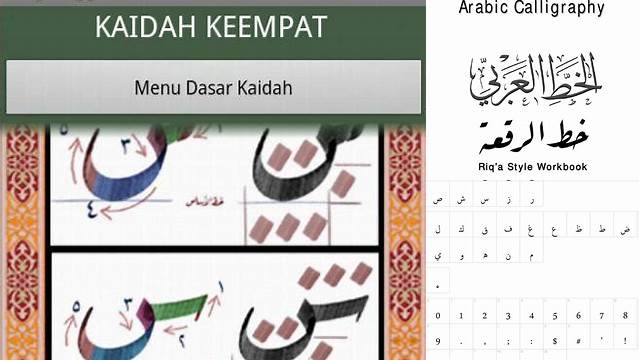
Free Riq'ah Font Download: Your Ultimate Guide
Are you looking to download Arabic Font Riq'ah for free? Well, you've come to the right place! This article is your ultimate guide to understanding, finding, and utilizing the beautiful Riq'ah script. We'll dive deep into its history, characteristics, and where you can get your hands on it without spending a dime. So, buckle up and let's explore the world of Riq'ah! This elegant script, known for its flowing and cursive style, holds a significant place in the world of Arabic calligraphy. Its widespread use in everyday handwriting, headlines, and informal contexts makes it an essential font for designers, students, and anyone interested in Arabic typography. But before we get into the specifics of downloading Riq'ah fonts, let's first understand what makes this script so unique and why it's so important.
Riq'ah script, a cornerstone of Arabic calligraphy, distinguishes itself through its distinctive features that make it both aesthetically pleasing and practical for everyday use. The beauty of Riq'ah lies in its simplicity and elegance. The letters are short, rounded, and connected, creating a fluid and harmonious flow across the page. Unlike more formal scripts like Naskh or Kufic, Riq'ah prioritizes speed and legibility, making it ideal for handwriting and quick note-taking. This emphasis on efficiency has contributed to its widespread adoption in various contexts, from personal correspondence to newspaper headlines. One of the defining characteristics of Riq'ah is the almost complete absence of diacritical marks (dots and dashes) above and below the letters. While this might seem like a potential source of ambiguity, the context and the overall flow of the script usually provide sufficient clues for deciphering the text. This simplification further enhances the speed and fluidity of writing in Riq'ah. The interconnectedness of the letters is another key feature. The letters within a word are joined together, creating a continuous, flowing line. This not only adds to the visual appeal of the script but also contributes to its speed and efficiency. The connections between letters are smooth and natural, allowing the writer to maintain a consistent rhythm. Riq'ah's versatility extends to its adaptability across different mediums and applications. It's commonly used in handwritten notes, posters, advertisements, and even digital designs. Its clear and concise forms make it suitable for both short and long texts, and its aesthetic appeal adds a touch of elegance to any project. Whether you're designing a logo, creating a social media graphic, or simply writing a letter to a friend, Riq'ah can be a beautiful and effective choice. Understanding these unique characteristics is the first step in appreciating the beauty and functionality of Riq'ah script. As you begin to explore the world of Riq'ah fonts, you'll notice these features in action, and you'll gain a deeper understanding of why this script has remained so popular for centuries. Now that we've explored the features of Riq'ah, let's dive into where you can find these fonts for free and how to use them in your projects.
What is Riq'ah Font?
Let's get into the nitty-gritty of what is Riq'ah Font exactly. Guys, Riq'ah is one of the most popular Arabic calligraphic styles, known for its concise forms and fluid strokes. It's like the cool, casual cousin of the more formal Arabic scripts. Itβs widely used in everyday handwriting, signage, and even in some print media. Think of it as the go-to script for quick, legible, and stylish Arabic writing. Historically, Riq'ah emerged as a simplified version of the Naskh script, designed for faster writing. This makes it incredibly practical for daily use. Its letters are typically short and connected, with a distinctive slant to the left. The beauty of Riq'ah lies in its simplicity. The strokes are clean, and the letterforms are compact, making it easy to read even when written quickly. This makes it an excellent choice for everything from personal notes to public announcements. One of the key features of Riq'ah is its interconnectedness. The letters flow seamlessly into one another, creating a sense of rhythm and harmony. This fluidity is not just aesthetically pleasing; it also contributes to the script's speed and efficiency. Writers can move smoothly from one letter to the next without lifting their pen, making it perfect for jotting down ideas or composing quick messages. Riq'ah's widespread use also means that there's a wealth of resources available for those who want to learn and use it. You can find Riq'ah calligraphy in various forms, from traditional handwritten pieces to digital fonts. This accessibility makes it an excellent choice for designers, students, and anyone interested in exploring Arabic calligraphy. When you compare Riq'ah to other Arabic scripts, its unique characteristics become even more apparent. For example, compared to the more elaborate Thuluth script, Riq'ah is much simpler and less ornate. It doesn't have the same grand, majestic feel as Thuluth, but it makes up for it in its practicality and ease of use. Similarly, compared to Kufic, which is known for its angular and geometric forms, Riq'ah is much more rounded and flowing. This contrast highlights the versatility of Arabic calligraphy, with each script offering its own unique aesthetic and functional qualities. In the digital world, Riq'ah fonts are essential for anyone working with Arabic typography. Whether you're designing a website, creating marketing materials, or simply writing emails in Arabic, having a good Riq'ah font in your toolkit is crucial. Fortunately, there are many high-quality Riq'ah fonts available, both free and paid, which we'll explore in more detail later in this article. Understanding the essence of Riq'ah β its simplicity, fluidity, and practicality β is the first step in appreciating its beauty and usefulness. So, whether you're a seasoned calligrapher or a complete beginner, Riq'ah offers a fantastic entry point into the world of Arabic script. Now that we know what Riq'ah is, let's find out where you can snag some free fonts!
How to Choose the Right Riq'ah Font
So, you've got a list of places to download free Riq'ah fonts, but how do you pick the right one? Choosing the right font is crucial, guys. It's like picking the perfect outfit β it can make or break your design! The key is to consider your project's specific needs and the overall aesthetic you're aiming for. First and foremost, think about the readability of the font. While Riq'ah is generally a legible script, some fonts are more stylized than others. If you're using the font for body text or longer passages, you'll want to choose one that's clear and easy on the eyes. Avoid fonts with overly decorative elements or unconventional letterforms, as these can make reading more challenging. For headlines or shorter text elements, you have a bit more leeway to experiment with more stylized fonts. In these cases, you can prioritize aesthetics over strict legibility, as long as the text is still readable at a glance. Think about the overall tone and mood you want to convey. Different Riq'ah fonts can evoke different feelings. Some fonts are more traditional and elegant, while others are more modern and playful. Consider the context of your project and choose a font that aligns with the message you're trying to communicate. For example, if you're designing a formal invitation, you might opt for a classic, refined Riq'ah font. On the other hand, if you're creating a social media graphic for a younger audience, a more contemporary and dynamic font might be a better choice. Think about the technical aspects of the font as well. Make sure the font supports the characters and symbols you need, especially if you're working with a specific dialect of Arabic. Check the font's character set to ensure it includes all the letters, numbers, and punctuation marks you'll be using. It's also a good idea to test the font in different sizes and weights. Some fonts look great in large sizes but become illegible when scaled down. Others may not have enough weight variations to provide the emphasis you need in your design. Experiment with different sizes and weights to see how the font performs in various contexts. Consider the font's compatibility with your design software and operating system. While most modern fonts are cross-platform compatible, it's always a good idea to double-check before you commit to a particular font. Make sure the font works seamlessly with your preferred design tools to avoid any technical issues down the road. Don't be afraid to try out multiple fonts before making a final decision. Download a few different Riq'ah fonts and experiment with them in your design. See how they look in different layouts, with different colors, and alongside other fonts. The more options you explore, the more likely you are to find the perfect font for your project. Lastly, remember to respect the font's licensing terms. If you're using a free font, make sure you understand the terms of use and that you're complying with the license. Some free fonts are for personal use only, while others can be used for commercial projects. Knowing the licensing terms will help you avoid any legal issues. Choosing the right Riq'ah font is a crucial step in creating effective and visually appealing designs. By considering factors like readability, tone, technical aspects, and licensing, you can select a font that perfectly complements your project. Now that you know how to choose the right font, let's explore how you can use Riq'ah in your designs.
How to Use Riq'ah Font in Your Designs
Alright, you've got your free Riq'ah font download and you're ready to roll. But how do you actually use it in your designs? Don't worry, guys, it's not rocket science! Using Riq'ah effectively is all about understanding its strengths and using it in the right context. Riq'ah is a versatile script, but it shines brightest when used for shorter text elements like headlines, quotes, and captions. Its flowing and concise forms make it ideal for grabbing attention and conveying a message quickly. In longer passages of text, Riq'ah can sometimes become a bit challenging to read due to its interconnected letterforms. So, it's generally best to reserve it for shorter pieces where its aesthetic qualities can really shine. Think about using Riq'ah in logos and branding materials. Its elegant and distinctive style can add a touch of sophistication to your brand identity. A well-crafted Riq'ah logo can be both visually appealing and culturally relevant, especially for businesses targeting Arabic-speaking audiences. When using Riq'ah in logos, keep the design clean and simple to ensure maximum impact. Experiment with different letter combinations and arrangements to create a unique and memorable logo. In social media graphics, Riq'ah can be a fantastic way to make your content stand out. Use it for headlines, captions, or even as a decorative element in your graphics. Its eye-catching style will help you capture attention and engage your audience. When using Riq'ah on social media, keep in mind the platform's character limits and the overall visual aesthetic. Choose a font that's easy to read on smaller screens and that complements your brand's visual identity. Riq'ah is also an excellent choice for posters and flyers. Its bold and flowing forms can create a dynamic and engaging visual experience. Use it for headlines, subheadings, or even as a background element in your designs. When designing posters and flyers, consider the overall layout and color scheme. Make sure the Riq'ah font stands out and is legible from a distance. In web design, Riq'ah can add a touch of elegance and cultural authenticity to your website. Use it for headings, navigation menus, or even as a decorative element in your website's design. When using Riq'ah on the web, keep in mind the website's loading speed and the font's compatibility with different browsers. Choose a font that's optimized for web use and that renders correctly on all devices. Experiment with different font sizes and weights to ensure the text is readable on different screen sizes. When incorporating Riq'ah into your designs, think about typography best practices. Pay attention to kerning, leading, and tracking to ensure the text is visually appealing and easy to read. Experiment with different font pairings to create a harmonious and balanced design. Riq'ah pairs well with both Arabic and Latin fonts, so you have plenty of options to choose from. Consider the color palette and the overall visual hierarchy of your design. Use color and contrast to highlight the Riq'ah text and make it stand out. Create a clear visual hierarchy to guide the viewer's eye and ensure they can easily read and understand the message. Finally, remember to be creative and have fun! Riq'ah is a beautiful and versatile script, so don't be afraid to experiment with different styles and techniques. Let your creativity guide you and see what unique and stunning designs you can create. By understanding how to use Riq'ah effectively, you can elevate your designs and create visually compelling and culturally relevant content. Now that you know how to use Riq'ah, let's wrap things up and summarize what we've learned.
So, guys, we've reached the end of our journey into the world of Arabic font Riq'ah free download. We've covered a lot, from understanding what Riq'ah is to finding free fonts and using them effectively in your designs. Hopefully, you're now feeling confident and inspired to start incorporating this beautiful script into your projects. Remember, Riq'ah is more than just a font; it's a rich part of Arabic culture and calligraphy. Its elegant and flowing forms have been used for centuries in various contexts, from personal handwriting to official documents. By using Riq'ah in your designs, you're not just adding a visual element; you're also connecting with a long and fascinating history. Finding the right Riq'ah font for your needs is crucial. Take the time to explore different options, consider your project's specific requirements, and choose a font that aligns with your overall aesthetic. Don't be afraid to experiment with different styles and techniques to create unique and visually appealing designs. Whether you're designing a logo, creating social media graphics, or building a website, Riq'ah can add a touch of elegance and authenticity to your work. But remember, it's not just about the font itself; it's about how you use it. Pay attention to typography best practices, such as kerning, leading, and tracking, to ensure your text is legible and visually harmonious. Experiment with different font pairings and color palettes to create a cohesive and balanced design. And most importantly, have fun and let your creativity shine! The world of Arabic typography is vast and diverse, with each script offering its own unique charm and character. Riq'ah is just one piece of the puzzle, but it's a significant one. By mastering Riq'ah, you'll be well-equipped to tackle a wide range of design challenges and create stunning visuals that resonate with your audience. So, go forth and explore the world of Riq'ah! Download some free fonts, experiment with different designs, and see what you can create. And don't forget to share your creations with the world. We'd love to see what you come up with! We hope this comprehensive guide has been helpful and informative. If you have any questions or suggestions, feel free to leave a comment below. And stay tuned for more articles on typography, design, and everything in between. Happy designing, guys!